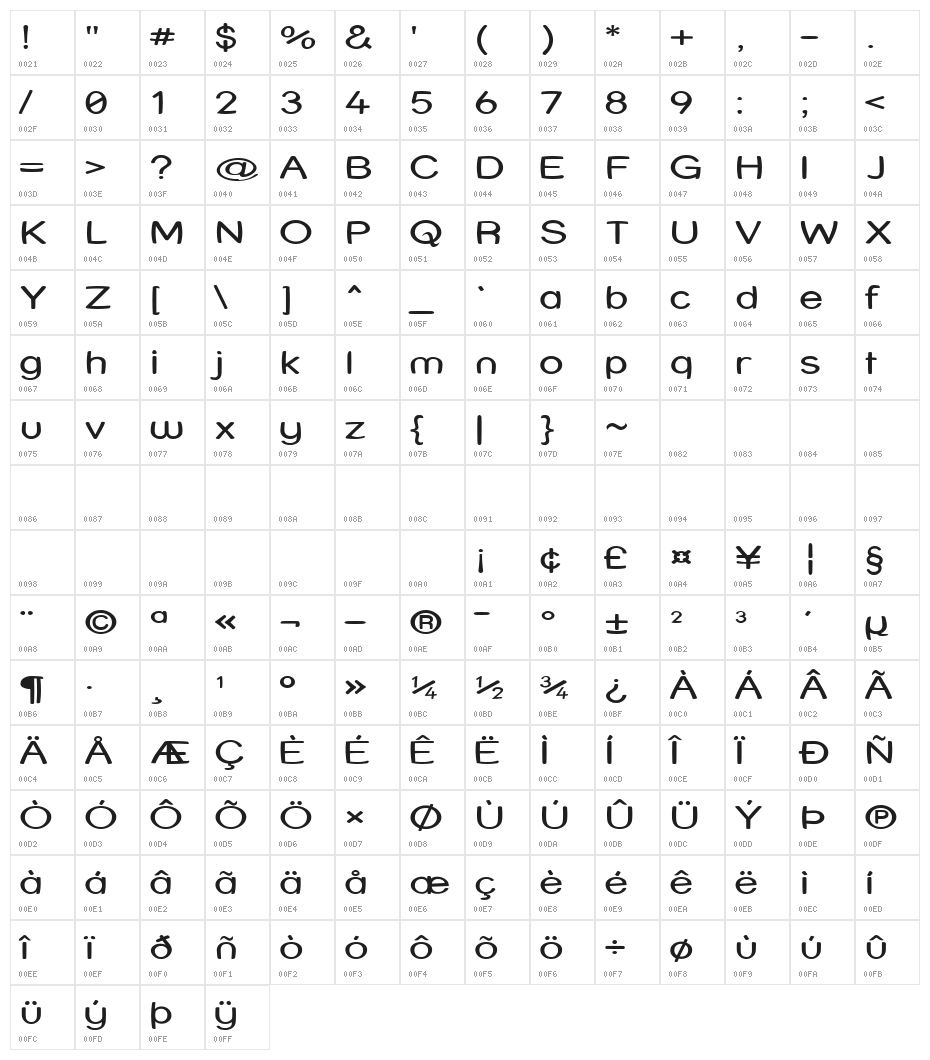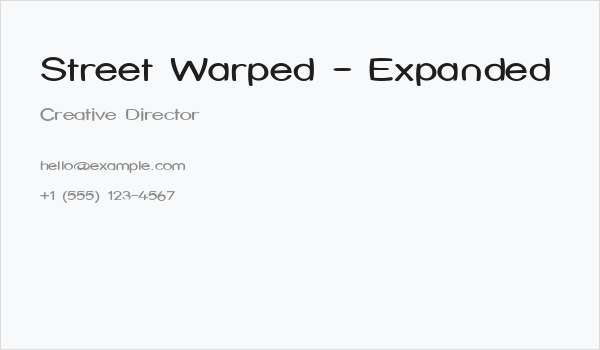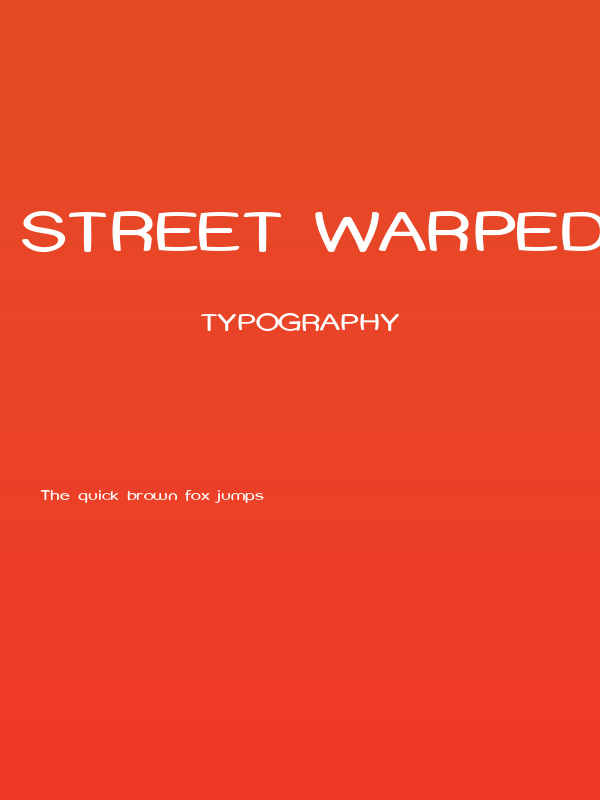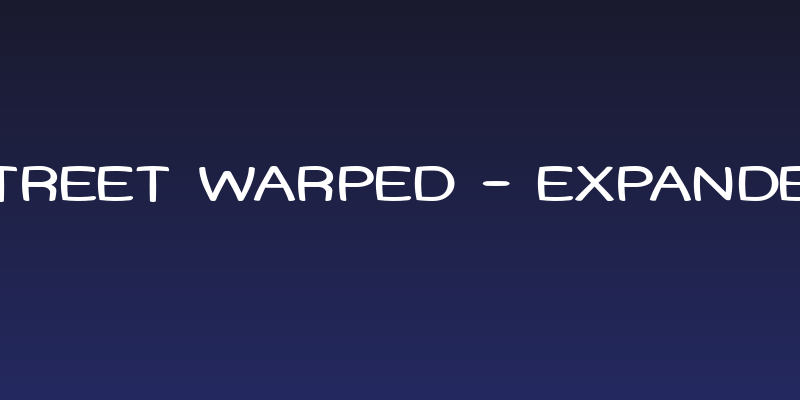
Street Warped - Expanded Font
Street Warped - Expanded Description
This font features a playful and rounded style, characterized by its smooth curves and slightly expanded letterforms. The uppercase and lowercase letters maintain a consistent flow, creating a harmonious and approachable appearance. The numerals are bold and clear, ensuring readability. Special characters are designed with the same rounded aesthetic, adding to the font's cohesive look. This font's unique style makes it suitable for projects that require a friendly and informal touch.
| Proposed Projects | Ideal for children's books, playful branding, casual invitations, and creative posters. |